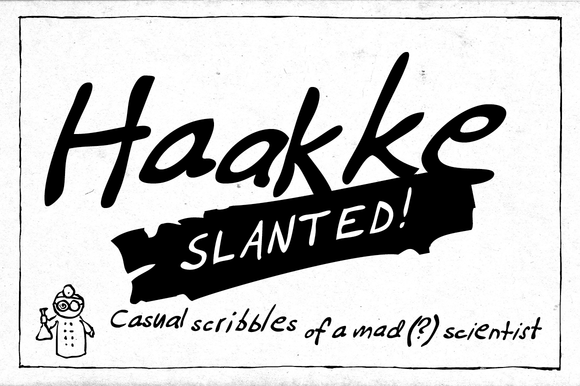
Discover the Unique Charm of Haakke Slanted Font by Dawnland
Are you a designer or crafter looking for a font that can add a touch of personality to your projects? Look no further than the Haakke Slanted font by Dawnland. This distinctive font is designed to bring a sense of style and sophistication to your designs, making it perfect for a wide range of creative endeavors.
What is Haakke Slanted Font?
Haakke Slanted font is a carefully crafted typeface that features a unique slanted design. Created by Dawnland, this font is characterized by its elegant and fluid lines, which give it a distinctive feel that’s both modern and timeless. The slanted design adds a sense of dynamism and energy to the font, making it perfect for designs that require a bit of flair.
Key Features of Haakke Slanted Font
- Unique Slanted Design: The Haakke Slanted font features a distinctive slanted design that sets it apart from other fonts.
- Elegant and Fluid Lines: The font’s elegant and fluid lines give it a sophisticated feel that’s perfect for a wide range of designs.
- Modern and Timeless: The Haakke Slanted font has a modern feel that’s balanced by its timeless design, making it suitable for both contemporary and classic designs.
- High-Quality Design: The font is carefully crafted to ensure that it looks great in any design, whether you’re using it for a logo, a poster, or a digital project.
Uses of Haakke Slanted Font
The Haakke Slanted font is incredibly versatile, making it suitable for a wide range of design projects. Here are some ideas for using this font:
- Logos and Branding: The unique design of the Haakke Slanted font makes it perfect for logos and branding projects that require a distinctive touch.
- Posters and Flyers: The font’s elegant and fluid lines make it suitable for posters and flyers that require a sophisticated feel.
- Digital Projects: The Haakke Slanted font is perfect for digital projects, such as website designs, social media graphics, and more.
- Crafting and Scrapbooking: The font’s unique design makes it a great choice for crafters and scrapbookers who want to add a personal touch to their projects.
Why Choose Haakke Slanted Font?
There are many fonts available that offer a similar design to Haakke Slanted, but there are several reasons why this font stands out from the crowd. Here are a few reasons why you might choose Haakke Slanted font for your next project:
- Unique Design: The Haakke Slanted font has a distinctive design that’s unlike any other font on the market.
- High-Quality: The font is carefully crafted to ensure that it looks great in any design.
- Versatile: The Haakke Slanted font is suitable for a wide range of design projects, from logos and branding to posters and digital projects.
- Easily Readable: Despite its unique design, the Haakke Slanted font is still easily readable, making it perfect for designs that require a bit of flair without sacrificing legibility.
Tips for Using Haakke Slanted Font
Here are a few tips for getting the most out of the Haakke Slanted font:
- Use it Sparingly: Because of its unique design, it’s best to use the Haakke Slanted font sparingly to avoid overwhelming your design.
- Pair it with Other Fonts: The Haakke Slanted font pairs well with other fonts, so don’t be afraid to experiment with different combinations.
- Experiment with Colors: The font looks great in a variety of colors, so don’t be afraid to experiment with different color schemes.
The Haakke Slanted font by Dawnland is a unique and versatile typeface that’s perfect for designers and crafters who want to add a touch of personality to their projects. With its elegant and fluid lines, distinctive slanted design, and high-quality craftsmanship, this font is sure to become a favorite in your design arsenal. So why not give it a try and see how it can elevate your designs?